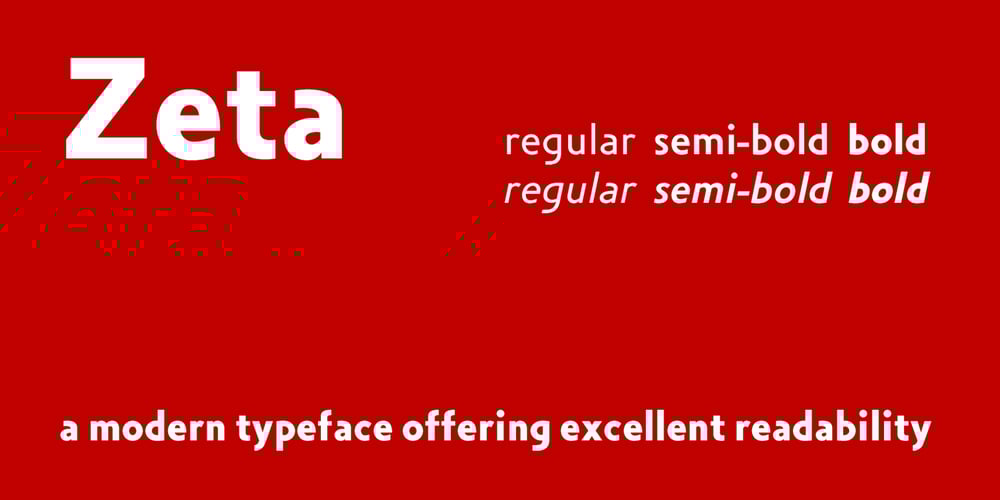
Zeta Font Family was designed by Roy Cole and published by Roy Cole. Zeta contains 6 styles and family package options. Zeta was developed by Roy Cole, the British typographer and book designer. It is his second typeface family, completed in 2006, and comprises six fonts. As with his other typeface families – Lina, Colophon and Coleface – Zeta is a sans-serif typeface, particularly notable for its fluidity and strong legibility. Whilst the proportions of Zeta are derived from classical models, the letter forms themselves are totally modern in concept. For example, when used for blocks of text little line spacing is needed to achieve good readability. Zeta is conceived as an easy reading typeface presenting an up-to-date impression wherever it is utilized. Due to its origins it really comes into its own when used for book design.